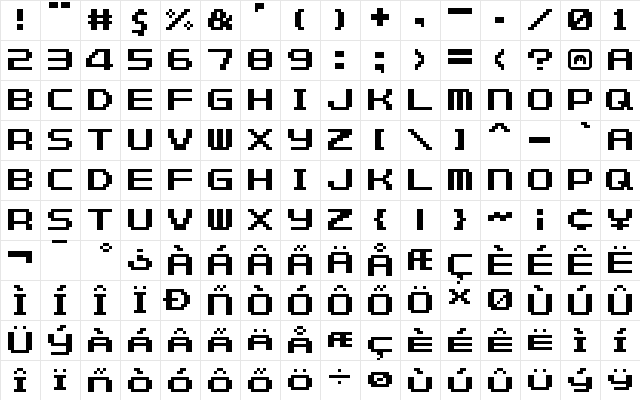
F-Zero GBA Text 1 Regular
Design Context for F-Zero GBA Text 1 Typeface
F-Zero GBA Text 1 is a composed and adaptable typeface that performs quietly and consistently across a wide range of design contexts.